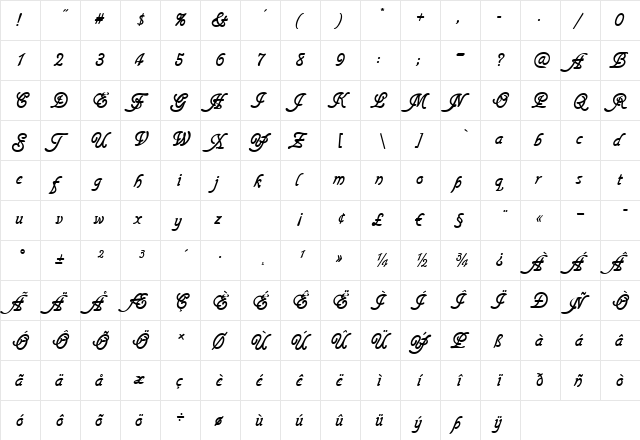
Script-G760 Regular Font Preview
Script-G760 Regular
Script-G760 Regular Font Details
Design Context for Script-G760 Typeface
Script-G760 brings a calligraphic fluidity to the page — its connecting strokes and expressive curves give it an unmistakably human quality.